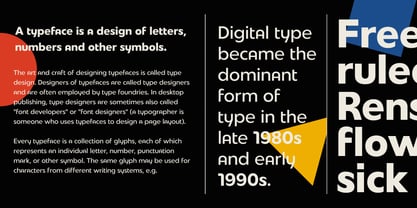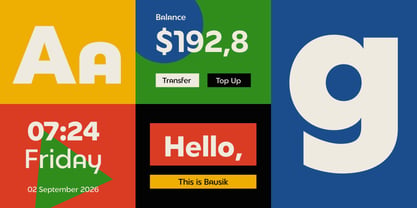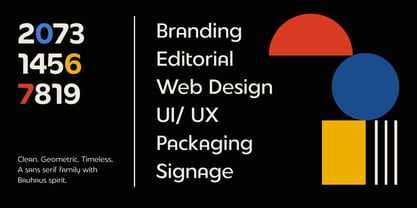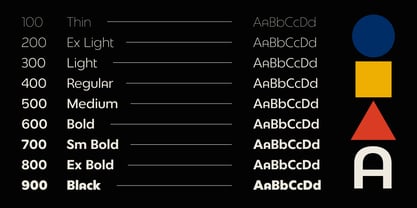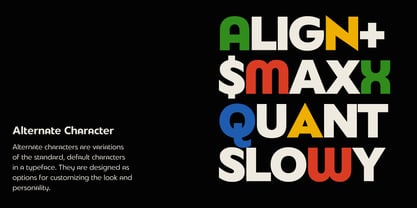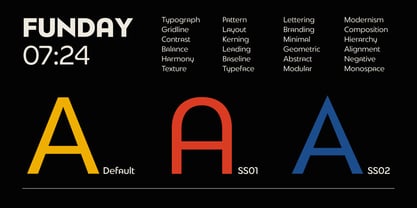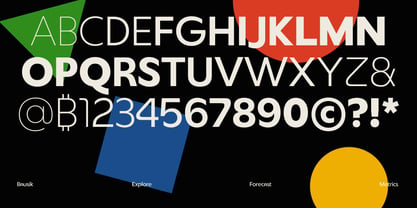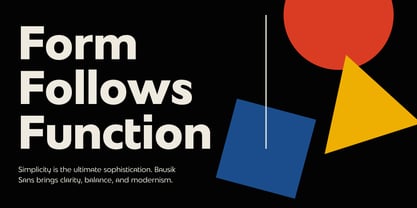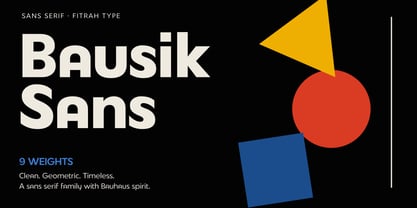
Bausik Sans
by Fitrah Type
The Bausik Sans Font Family was designed by Moch Fitrah Hidayat and published by Fitrah Type. Bausik Sans contains 9 styles and family package options. More about this family
Bausik Sans is a modern sans-serif typeface inspired by the unique spirit and design philosophy of the Bauhaus movement. This typeface beautifully merges simplicity, functionality, and expressive details, resulting in a clean yet characterful typographic style.
With 9 available weights, it provides a wide range of options for crafting strong typographic compositions, from light and subtle layouts to bold and impactful headlines. Its versatile nature makes it ideal for various applications, including branding, posters, editorial design, packaging, headlines, and digital platforms.
Bausik Sans offers a contemporary interpretation of Bauhaus-inspired typography, striking a perfect balance between functional simplicity and a distinctive visual personality.
Designers: Moch Fitrah Hidayat
Foundry: Fitrah Type